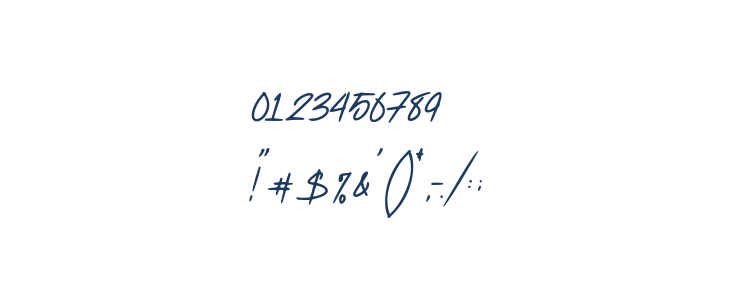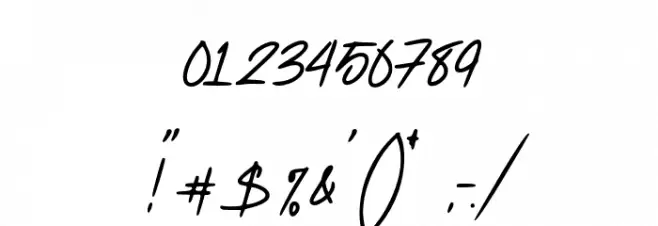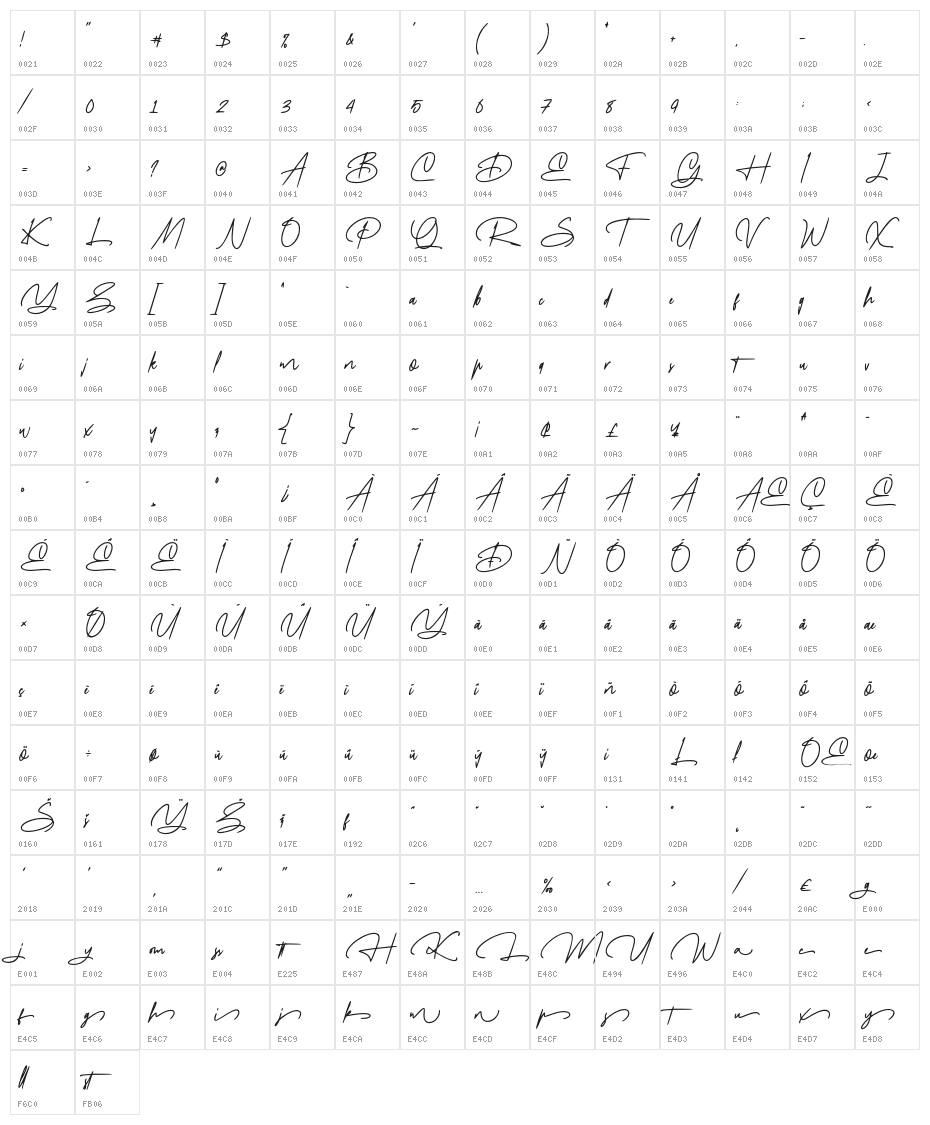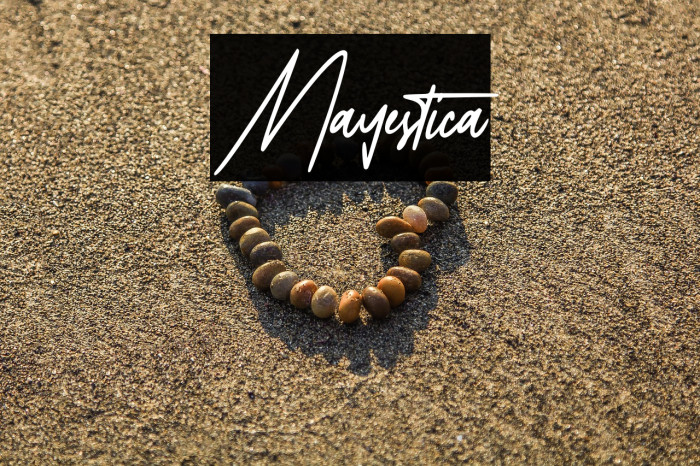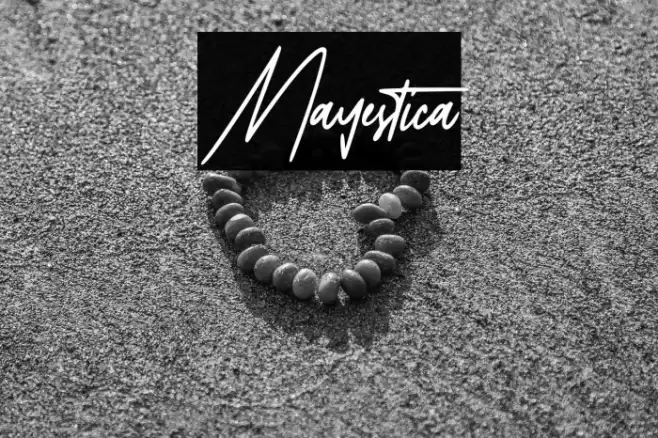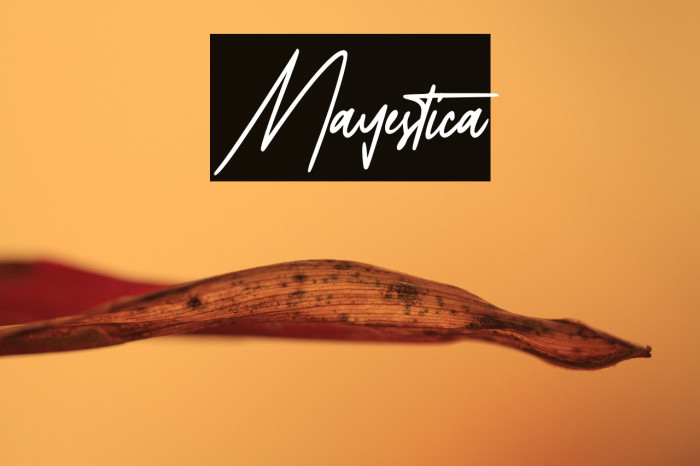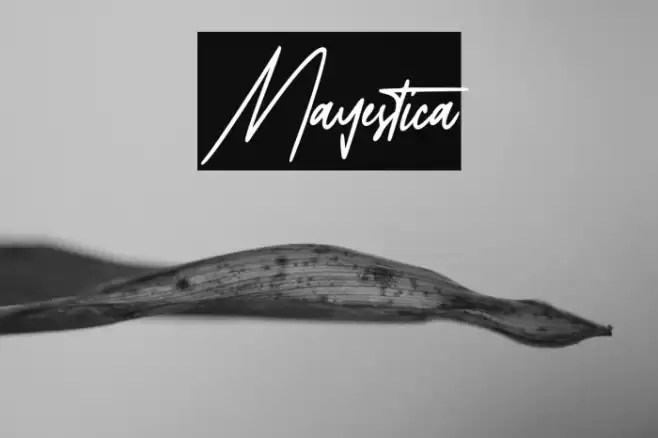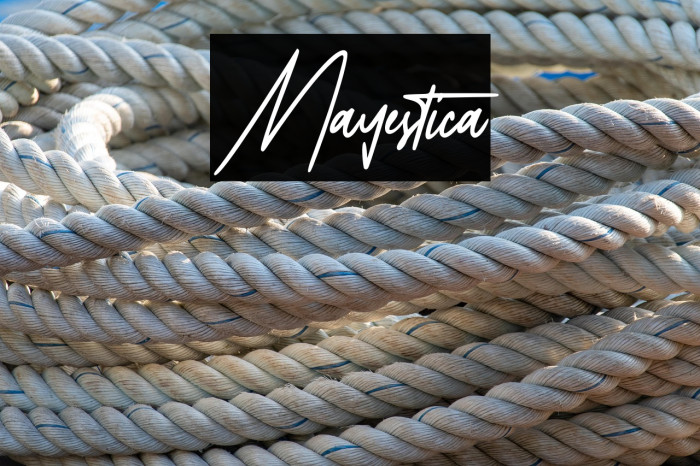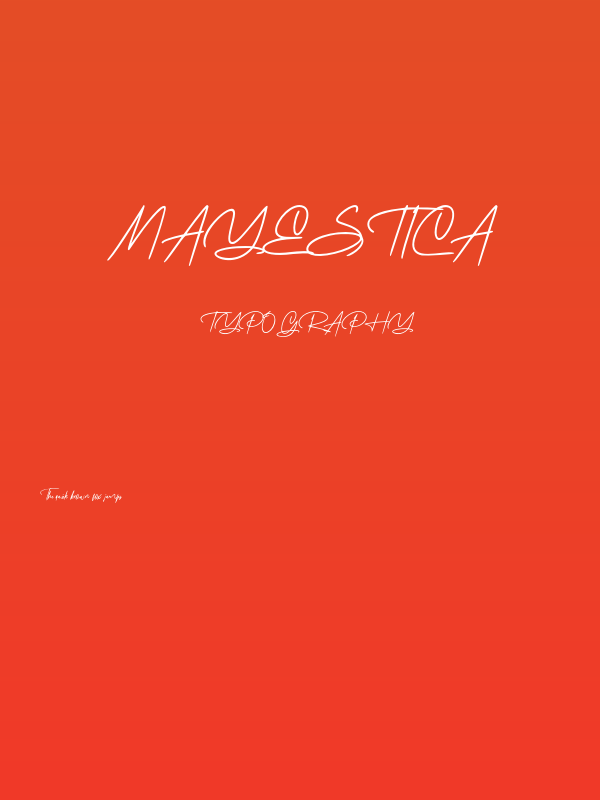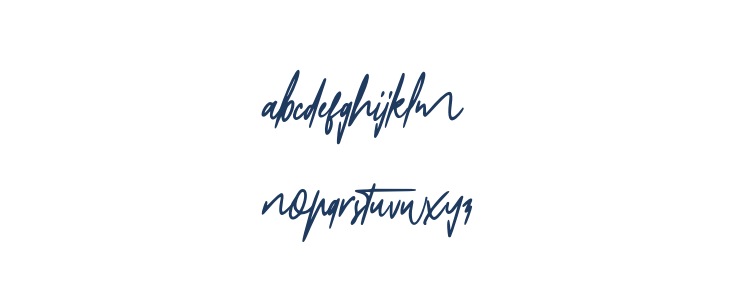
Mayestica Font
Mayestica Description
This font exudes elegance and sophistication with its flowing, cursive style. The uppercase letters are characterized by sweeping, elongated strokes that give a sense of movement and grace. The lowercase letters maintain a consistent flow, with some letters featuring distinctive loops and flourishes. Numbers are styled to match the cursive theme, maintaining readability while adding a touch of flair. Special characters are creatively integrated, ensuring they complement the overall aesthetic. This font is ideal for projects that require a personal, handwritten touch, such as invitations, branding, or artistic designs.
| Overall Style | Elegant, Sophisticated |
| Use Case | Logos, Invitations, Artistic designs |
| Proposed Projects | Ideal for wedding invitations, personal branding, artistic projects, and elegant stationery. |